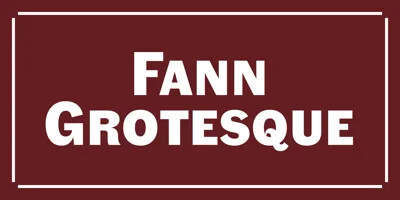
Fann Grotesque Font
Fann Grotesque Font is perfect for contemporary branding, modern magazines, tech companies, urban signage, industrial design, architectural projects, and minimalist packaging. This progressive typeface delivers exceptional impact in both digital interfaces and print applications.
Fann Grotesque Font is exciting because it reinterprets classic grotesque typography with contemporary design principles, featuring distinctive character shapes and refined proportions that create a unique balance between historical reference and modern innovation.
The Fann Grotesque Font family includes multiple weights ranging from Thin to Black, along with corresponding oblique styles. This comprehensive collection provides designers with extensive typographic flexibility for creating dynamic and cohesive visual systems.
Fann Grotesque Font offers designers access to a masterfully crafted sans-serif typeface that bridges the gap between traditional grotesque designs and contemporary typography needs. This sophisticated font features carefully engineered letterforms with optimal character spacing and proportions that ensure exceptional readability across all applications. The typeface showcases subtle design details and refined stroke relationships that create visual interest while maintaining the neutral functionality that defines great grotesque typography. Its versatile character makes it suitable for a wide range of design contexts, from corporate identity systems to editorial layouts. Fann Grotesque Font maintains consistent performance in both screen and print environments, delivering reliable results for complex typographic projects. The font's modern interpretation of classic grotesque principles ensures it remains relevant for contemporary design challenges while honoring the rich tradition of sans-serif typography.